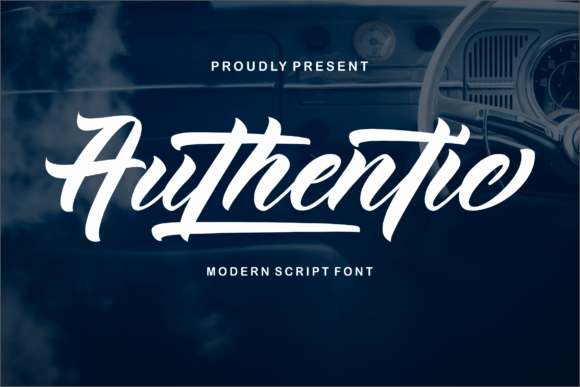
The Quest for the Perfect Font: Discovering Authentic
I still remember the frustration of working on a design project, hours spent searching for that one font that would bring it all together. My client wanted something modern, bold, and elegant – a font that would make their brand stand out. As I scrolled through font after font, I couldn’t help but feel like I was stuck in a never-ending loop of sameness. That was until I stumbled upon Authentic, a modern and bold script font that instantly caught my eye.
An Honest Review of Authentic
- ✨ Modern and bold design: Authentic has a fresh, contemporary feel that’s perfect for making a statement.
- ✅ PUA encoded: This means you can access all the glyphs and ligatures with ease, giving you endless creative possibilities.
- 💻 Crafting and digital design friendly: Whether you’re working on a craft project, digital design, presentation, or greeting card, Authentic is versatile enough to shine.
Of course, no font is perfect, and there are a few minor quirks to consider:
- 🤔 Some characters may require manual kerning: While Authentic is generally well-spaced, you might need to adjust the kerning for certain character combinations.
- ⚠️ Limited availability of language support: As with many script fonts, Authentic may not support all languages or special characters.
The Story Behind Authentic
While the origins of Authentic might be shrouded in mystery, it’s clear that this font was designed with creativity and versatility in mind. Imagine a designer who wanted to craft a font that would make any project pop – someone who poured their heart and soul into every detail, from the bold strokes to the elegant ligatures.
| Font Name | Authentic Font |
| Author | Raffa Creative |
| What is PUA encoding? | PUA (Private Use Area) encoding allows font designers to include additional characters and glyphs that aren’t part of the standard Unicode character set. This means you can access more creative options with Authentic. |
| Is Authentic suitable for body text? | Authentic is a script font, so it’s best suited for headlines, titles, and short paragraphs. For longer body text, you might prefer a more traditional serif or sans-serif font. |